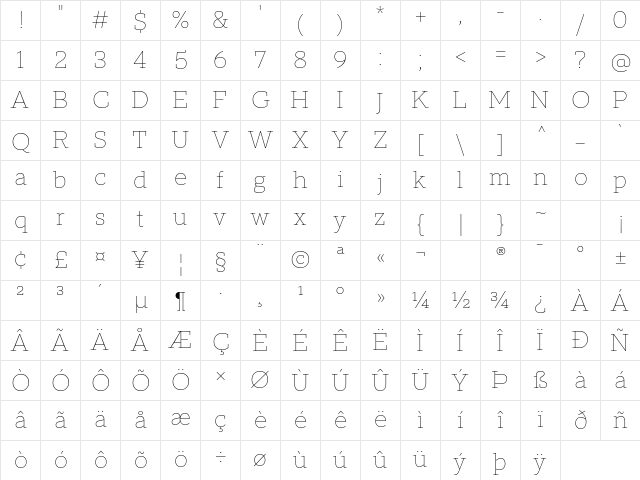
TT Norms Pro Serif Trl Th
Style: Th
Designer: Designed by Yulia Gonina, Ksenia Karataeva, Tamara Streltsova, Marina Khodak, Radik Tukhvatullin, Antonina Samokhina, Lada Sobchenko. Technical designers Ivan Gladkikh, Yuriy Nako, Anastasia Pogorelova, Victor Rubenko.
Complete TT Norms Pro Serif Trl Th glyph index. Displaying only characters natively supported by TT Norms Pro Serif Trl Th font.
Design Context for TT Norms Pro Serif Trl
TT Norms Pro Serif Trl carries the refined structure of traditional serif typography, with bracketed terminals and considered proportions that communicate credibility and craft.